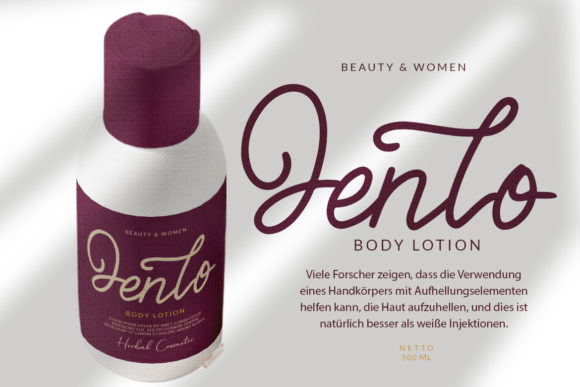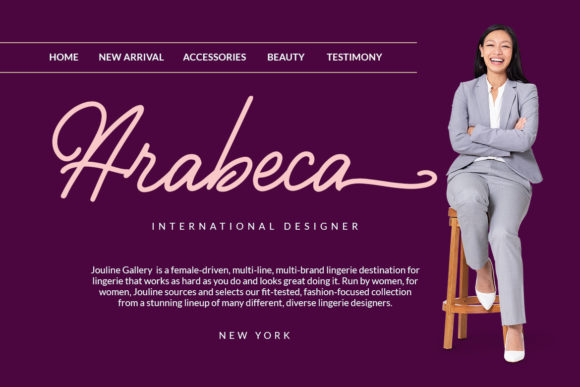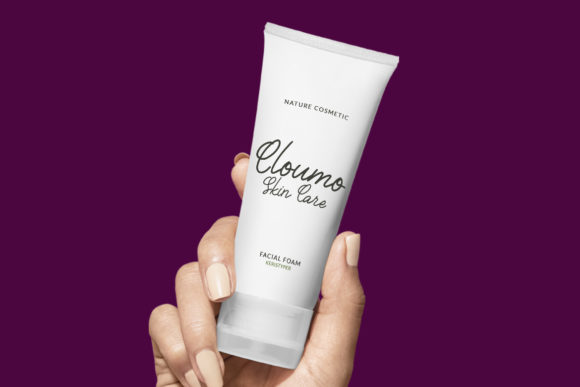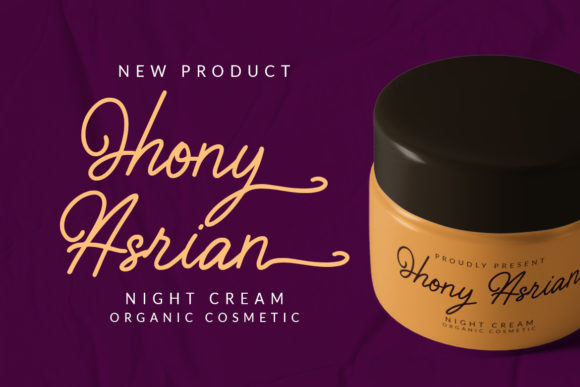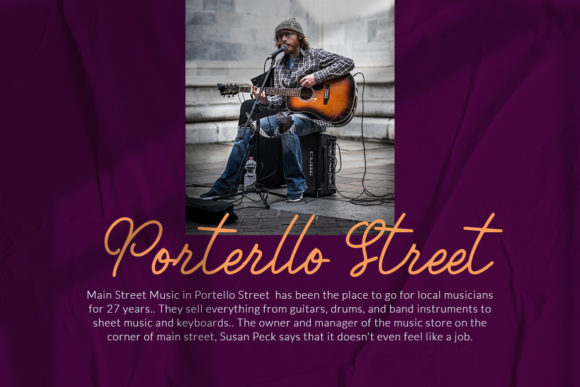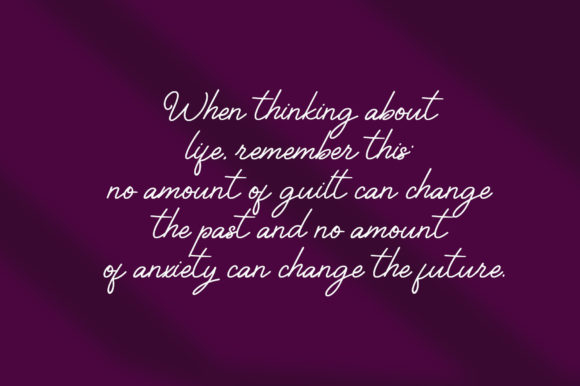
Alice Roman Font: Elevate Your Designs with Elegance and Sophistication
Are you looking for a font that exudes elegance, sophistication, and romance? Look no further than the stunning Alice Roman Font. This beautiful script font is perfect for designers and crafters who want to add a touch of luxury to their creations. In this article, we’ll dive into the world of Alice Roman Font and explore its features, benefits, and uses.
What is Alice Roman Font?
Alice Roman Font is a gorgeous script font that boasts a ravishing style, perfect for creating breathtaking wedding invitations, stunning stationary art, eye-catching social media posts, and more. Its elegant and sophisticated design makes it an ideal choice for designers and crafters who want to add a touch of romance and glamour to their projects.
Features of Alice Roman Font
So, what makes Alice Roman Font so special? Here are some of its key features:
- PUA Encoding: Alice Roman Font is PUA (Private Use Area) encoded, which means you can access all the glyphs and swashes with ease. This feature allows you to unlock the full potential of the font and take your designs to the next level.
- Beautiful Script Design: The font features a stunning script design that’s perfect for creating elegant and sophisticated text. Its flowing lines and curves make it ideal for adding a touch of romance and glamour to your projects.
- Versatile: Alice Roman Font is incredibly versatile and can be used for a wide range of projects, from wedding invitations and stationary art to social media posts and more.
Benefits of Using Alice Roman Font
So, why should you choose Alice Roman Font for your next project? Here are some of the benefits of using this stunning font:
- Elegance and Sophistication: Alice Roman Font adds a touch of elegance and sophistication to any project, making it perfect for designers and crafters who want to create high-end designs.
- Easy to Use: The font is incredibly easy to use, even for those who are new to designing. Its PUA encoding makes it simple to access all the glyphs and swashes, and its script design is easy to read and understand.
- Time-Saving: With Alice Roman Font, you can create stunning designs in no time. Its versatility and ease of use make it a time-saving solution for designers and crafters who want to create beautiful projects quickly and efficiently.
Uses of Alice Roman Font
So, what can you create with Alice Roman Font? The possibilities are endless! Here are some ideas to get you started:
- Wedding Invitations: Create breathtaking wedding invitations that will leave your guests in awe. Alice Roman Font is perfect for adding a touch of romance and elegance to your wedding stationery.
- Stationary Art: Design stunning stationary art that’s perfect for adding a touch of elegance to your office or home. Alice Roman Font is ideal for creating beautiful journals, planners, and more.
- Social Media Posts: Create eye-catching social media posts that will grab the attention of your followers. Alice Roman Font is perfect for adding a touch of sophistication and glamour to your social media designs.
- More: The possibilities are endless with Alice Roman Font. You can use it to create beautiful quotes, stunning posters, and more.
In conclusion, Alice Roman Font is a stunning script font that’s perfect for designers and crafters who want to add a touch of elegance and sophistication to their creations. Its PUA encoding, beautiful script design, and versatility make it an ideal choice for a wide range of projects. Whether you’re creating wedding invitations, stationary art, social media posts, or more, Alice Roman Font is sure to elevate your designs to the next level.